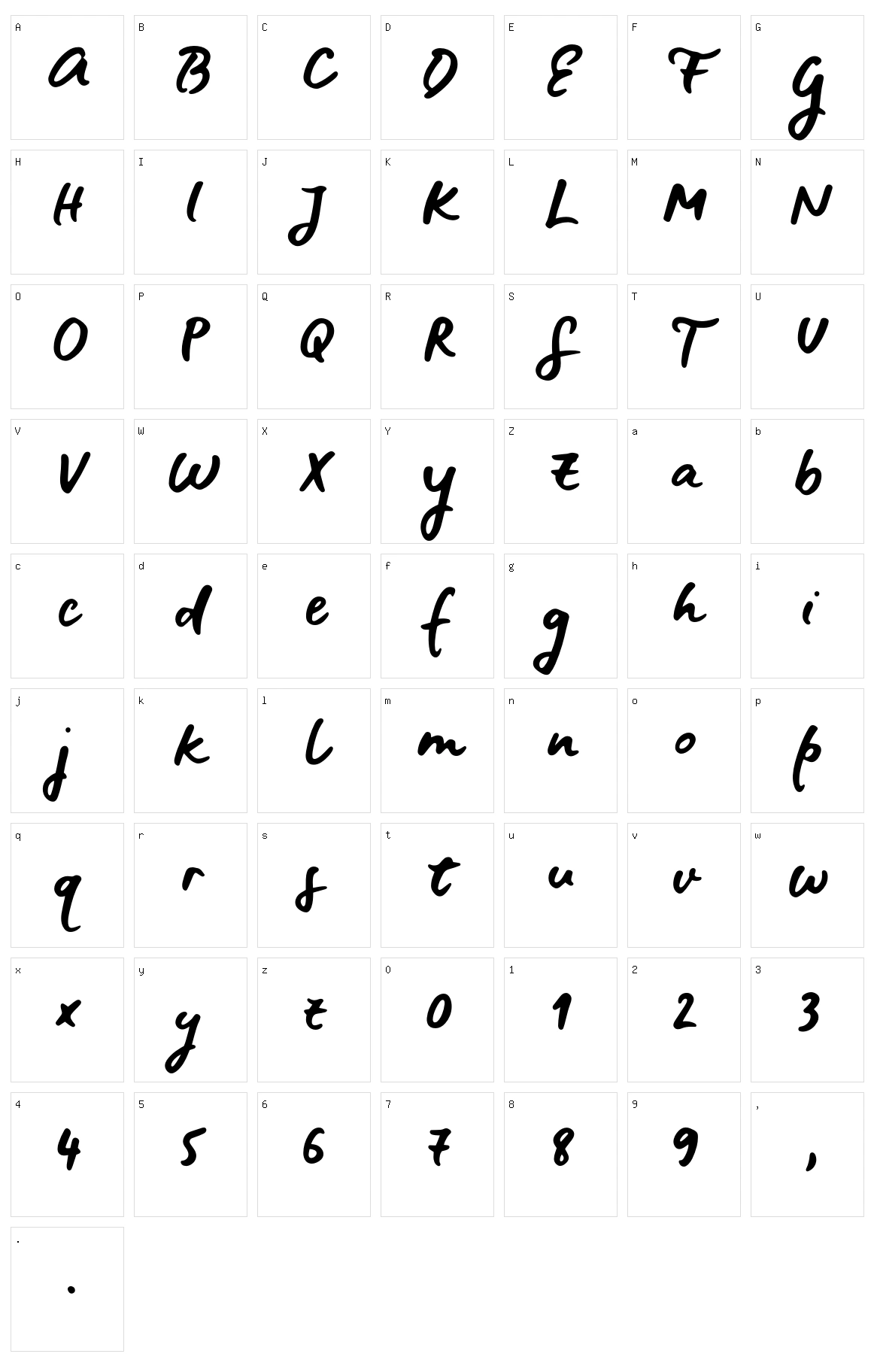
The free font Blue Fires is carefully designed by Ana, showcasing a thoughtful balance of creativity and usability and falls under the Script font style. When you download the ZIP file, it contains only 49.41 KB of font files, making it lightweight and quick to download. Please review the license details below to understand permitted usage and distribution rights. If license information is not available, we recommend using this font for personal projects only or contacting the author directly for commercial usage permissions.